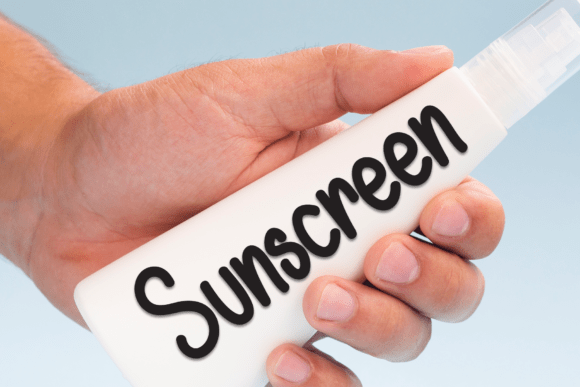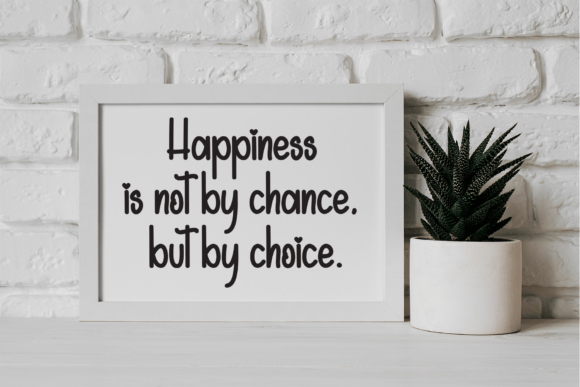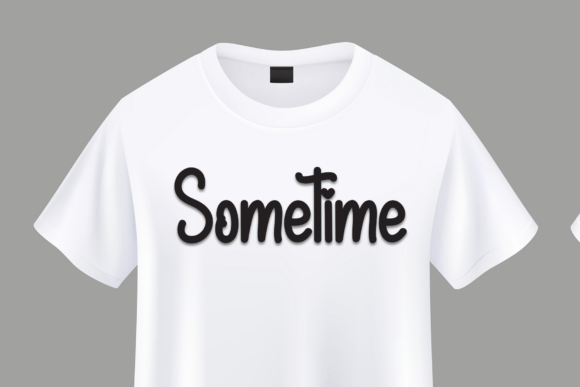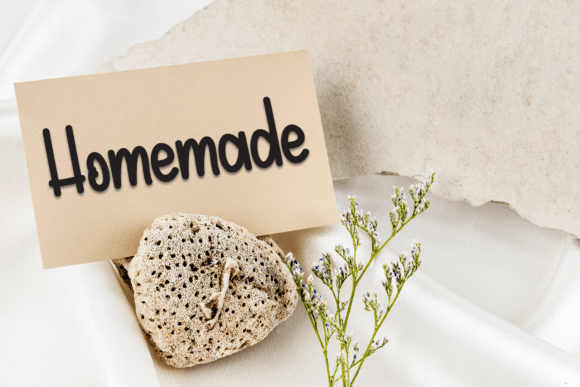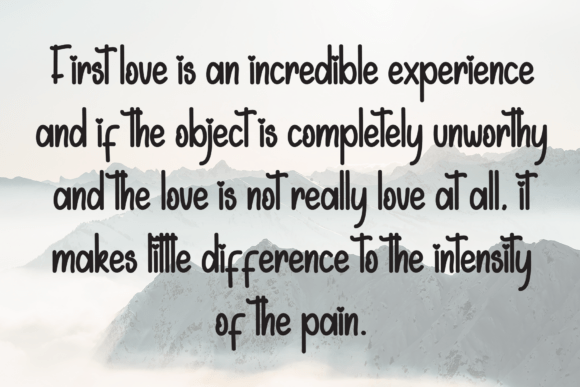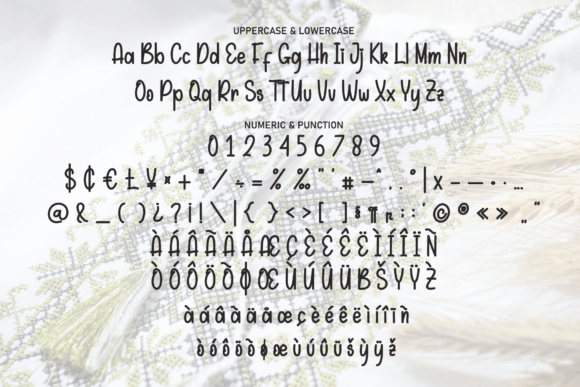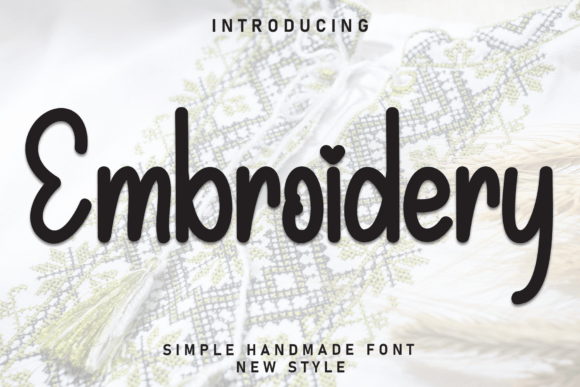
Introducing the Embroidery Font: A Charming Handwritten Display Font
Are you looking for a font that can add a touch of sweetness and fun to your creative designs? Look no further than the Embroidery Font, a charming and personable handwritten display font that’s perfect for a variety of projects, from wedding invitations to special occasion cards.
A Perfect Fusion of Sweetness and Fun
The Embroidery Font is a unique and delightful font that’s designed to bring a heartwarming, playful touch to all your communication needs. With its distinctive style statement, this font promises to make every design not just visually appealing but emotionally engaging as well. Whether you’re a designer, crafter, or DIY enthusiast, this font is sure to elevate your designs to new heights and let your imagination run wild.
What Makes the Embroidery Font Special?
So, what sets the Embroidery Font apart from other fonts out there? Here are just a few features that make it a standout:
- Handwritten with love: The Embroidery Font is a carefully crafted handwritten display font that’s designed to exude friendliness and endearing appeal.
- Unique style statement: With its distinctive and charming style, this font is sure to make your designs stand out from the crowd.
- Versatile: The Embroidery Font is perfect for a variety of projects, from wedding invitations and special occasion cards to social media graphics and more.
How to Use the Embroidery Font in Your Designs
The Embroidery Font is a versatile font that can be used in a variety of ways. Here are just a few ideas to get you started:
- Wedding invitations: Add a touch of sweetness and romance to your wedding invitations with the Embroidery Font.
- Special occasion cards: Make your special occasion cards, such as birthday and anniversary cards, extra special with this charming font.
- Social media graphics: Use the Embroidery Font to create eye-catching social media graphics that are sure to grab attention.
- DIY projects: Add a personal touch to your DIY projects, such as scrapbooking and crafting, with this delightful font.
Tips for Getting the Most Out of the Embroidery Font
Here are a few tips for getting the most out of the Embroidery Font:
- Experiment with different colors: Try pairing the Embroidery Font with different colors to create unique and eye-catching designs.
- Play with font sizes: Experiment with different font sizes to create visual interest and add emphasis to your designs.
- Combine with other fonts: Try combining the Embroidery Font with other fonts to create a unique and stylish look.
The Embroidery Font is a charming and personable handwritten display font that’s perfect for designers and crafters who want to add a touch of sweetness and fun to their creative designs. With its unique style statement and versatile design, this font is sure to elevate your designs to new heights and let your imagination run wild. So why wait? Download the Embroidery Font today and start creating designs that are sure to delight!
Whether you’re a seasoned designer or a DIY enthusiast, the Embroidery Font is a must-have font that’s sure to become a favorite in your collection. So go ahead, get creative, and let the Embroidery Font bring a heartwarming, playful touch to all your communication needs!